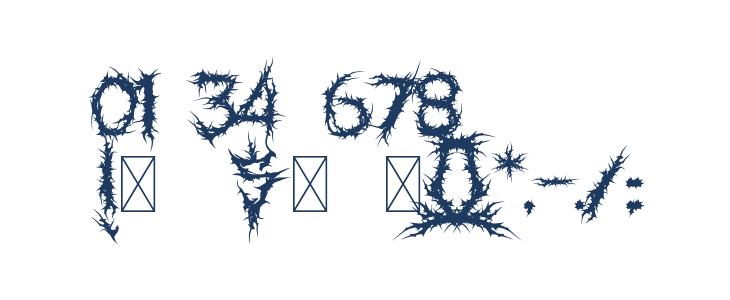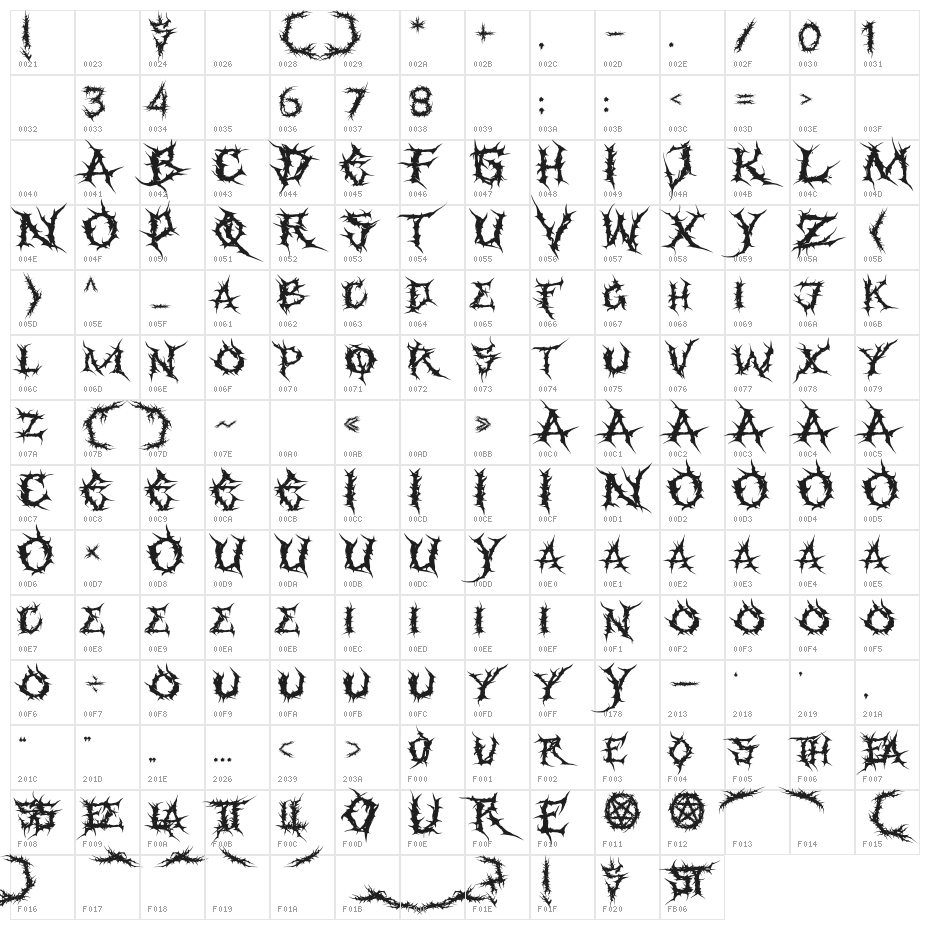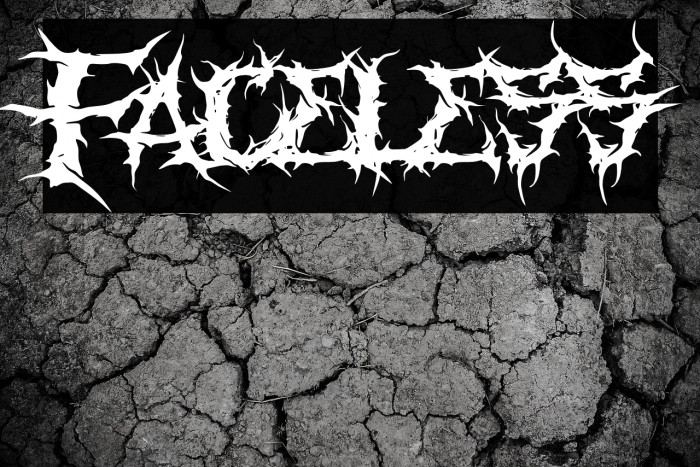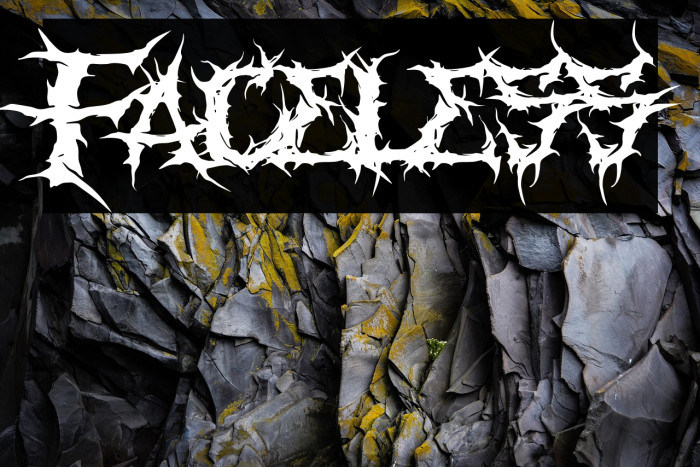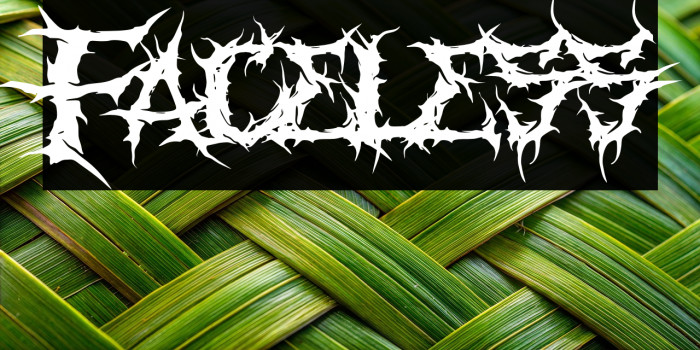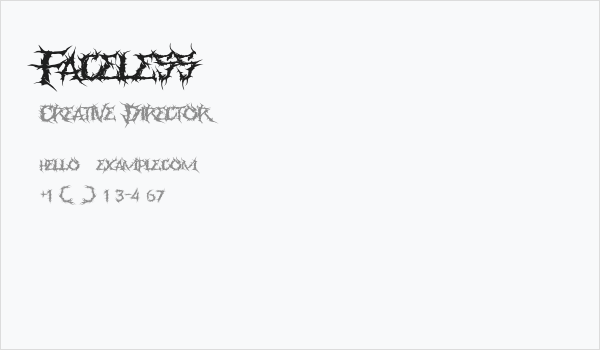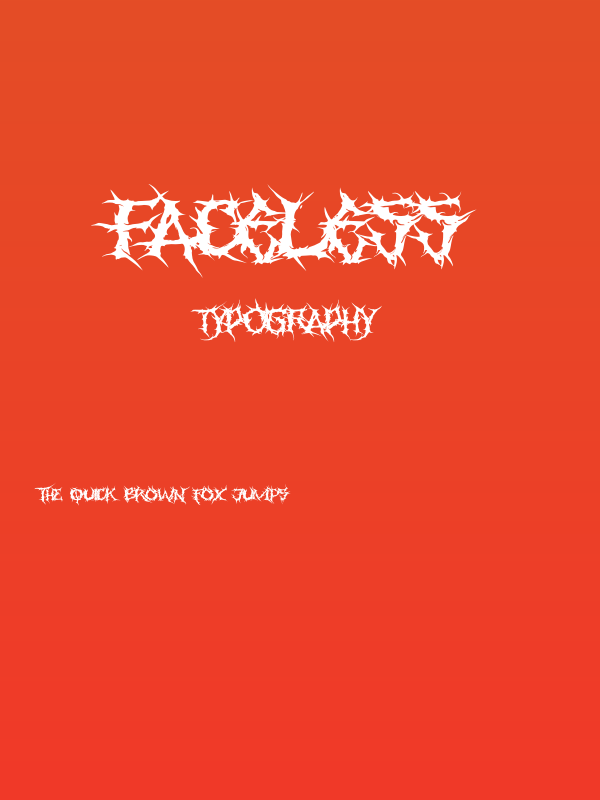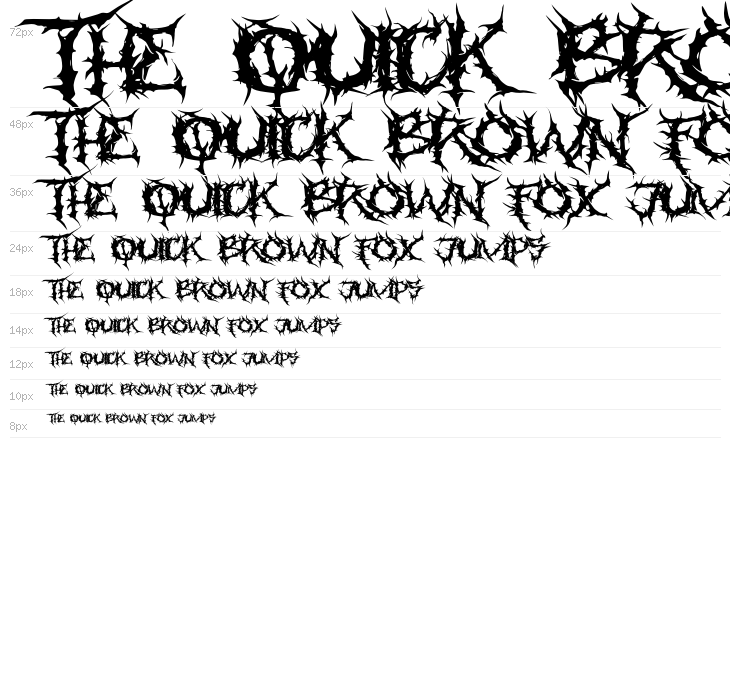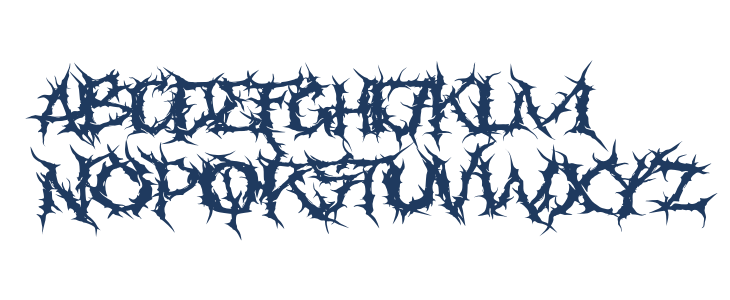
Faceless Font
Faceless Description
This font features an aggressive and thorny design, with each character appearing as if it's constructed from sharp, jagged thorns. The letters are bold and highly decorative, creating a sense of intensity and edginess. The uppercase and lowercase characters maintain a consistent style, with the thorny elements extending outward, giving the font a chaotic yet structured appearance. The numbers and special characters follow the same design principles, ensuring a cohesive look across all elements. This font is ideal for projects that require a dramatic and eye-catching typeface.